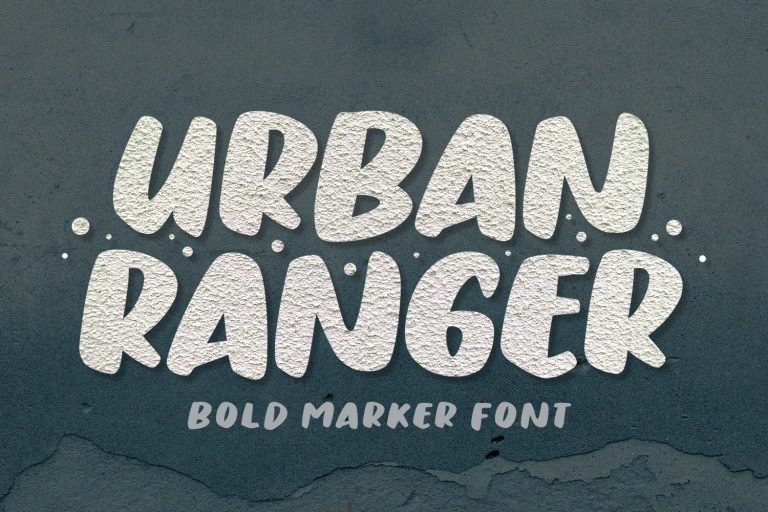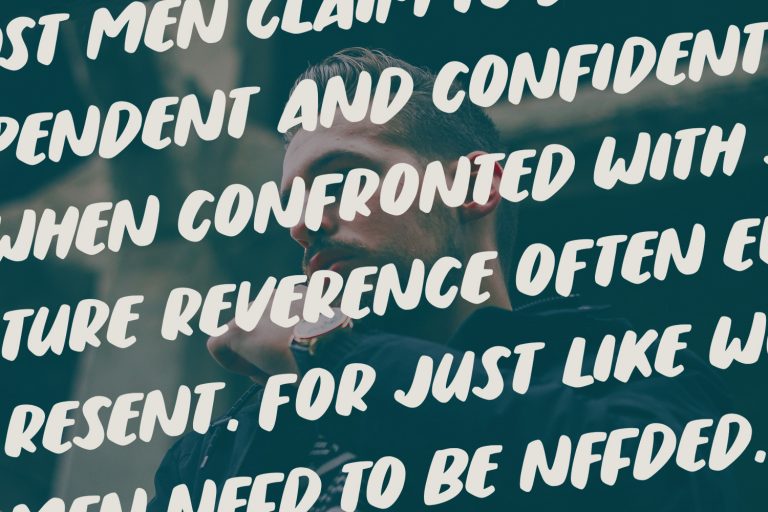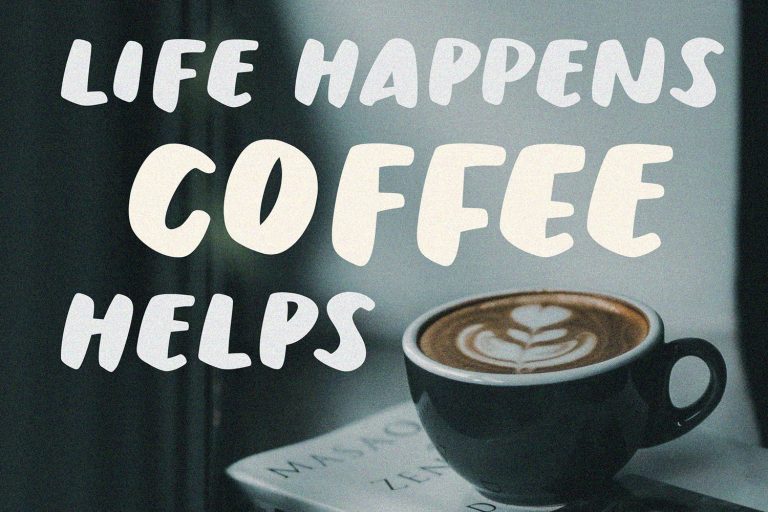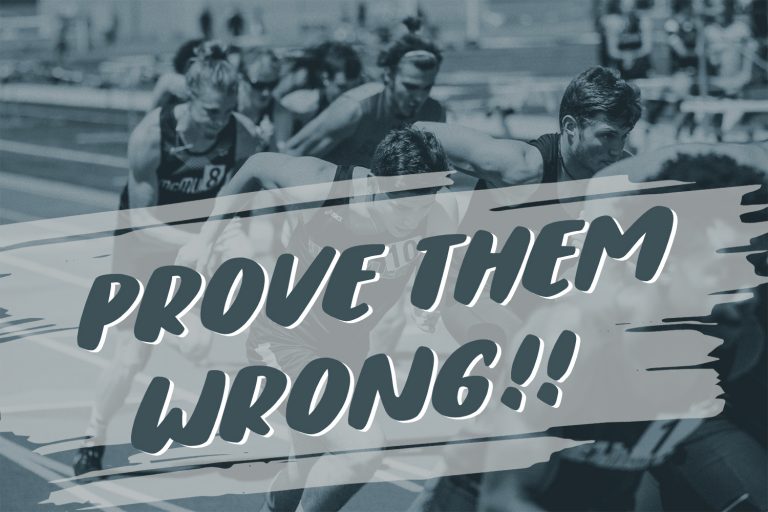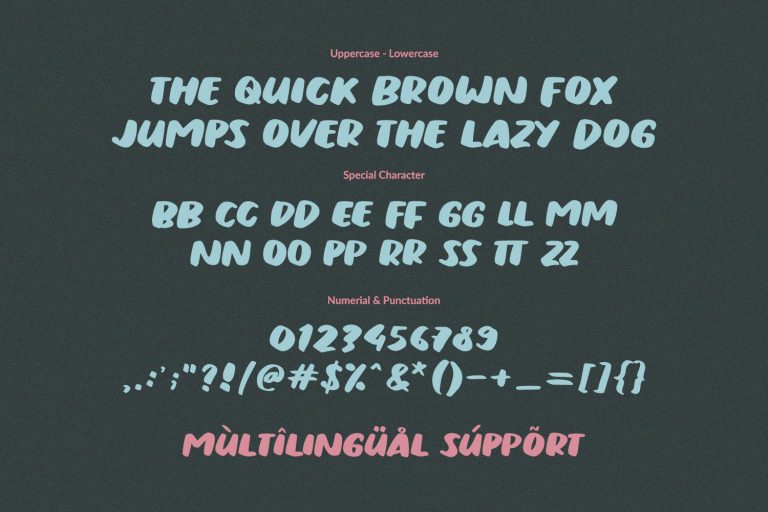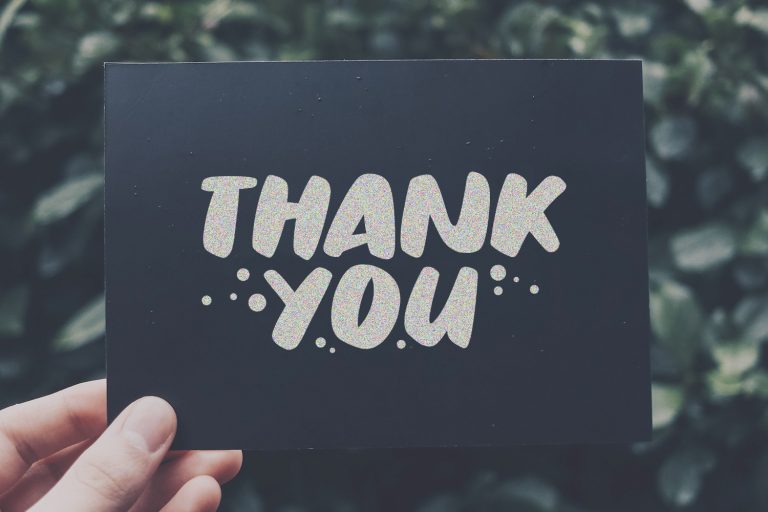
Urban Ranger is an Urban Display font.
this font is so bold and fun, made with marker brush. This Fun display font will turn any creative idea into a true standout.
multilingual support
Ligatures